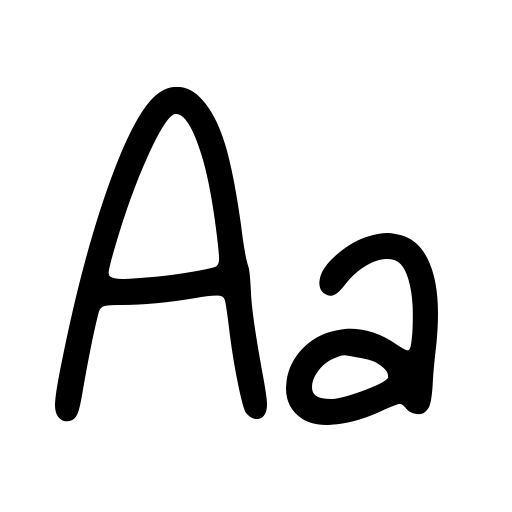
Bochild is a playful, casual handwritten sans-serif font with a light weight and tall, narrow letterforms that mimic natural pen strokes. Its uneven lines and quirky shapes give it an approachable, friendly personality perfect for informal designs, children's materials, or creative branding that seeks a personal touch. This font works well in headlines, logos, and packaging where a warm, hand-crafted feel is desired.
Bochild Font